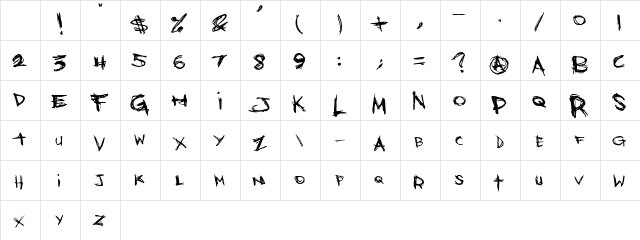
Complete Bones Bummer Regular glyph index. Displaying only characters natively supported by Bones Bummer Regular font.
Bones Bummer is a composed and adaptable typeface that performs quietly and consistently across a wide range of design contexts.
Who designed the Bones Bummer Regular font?